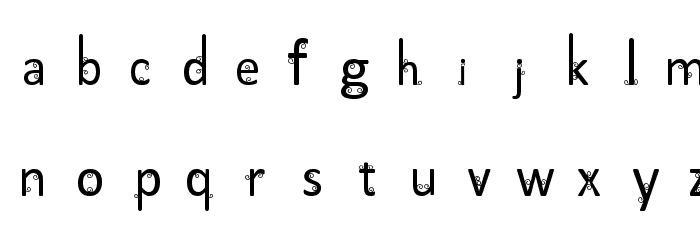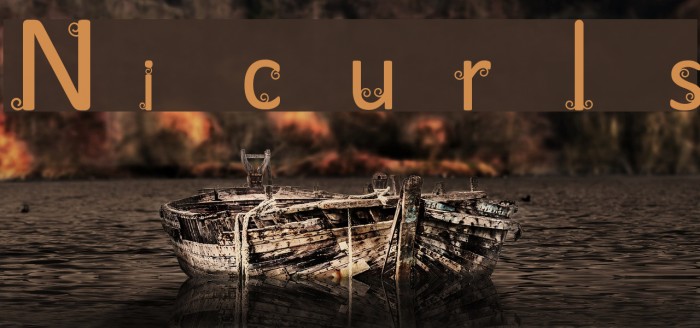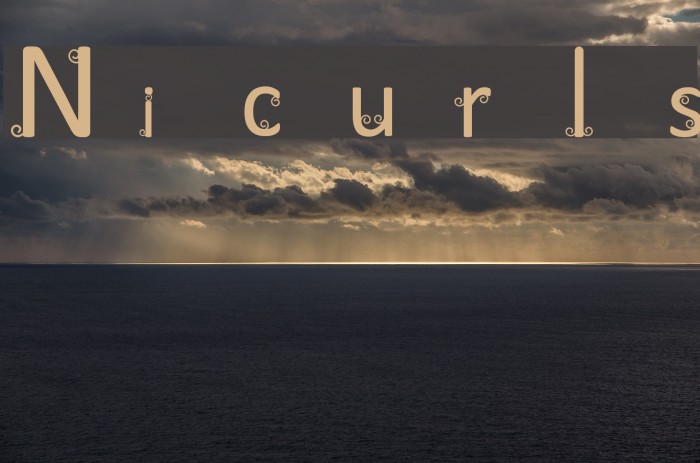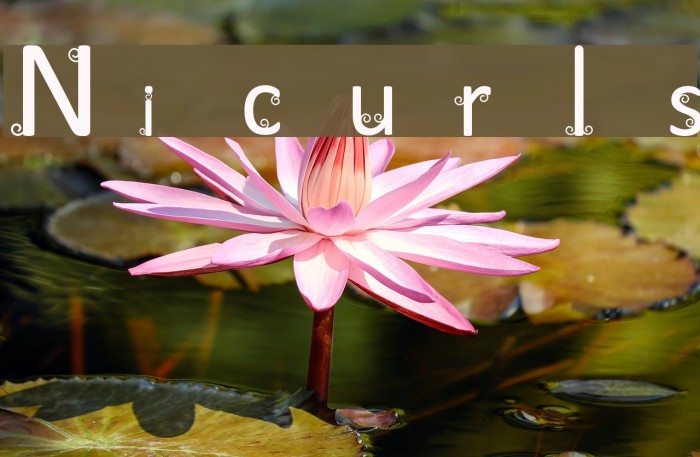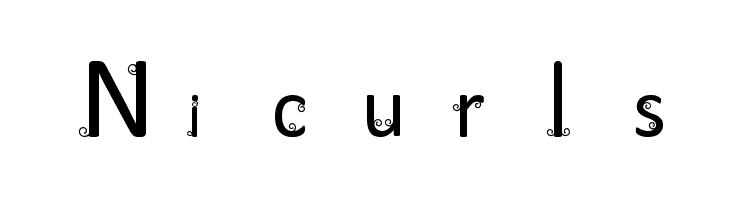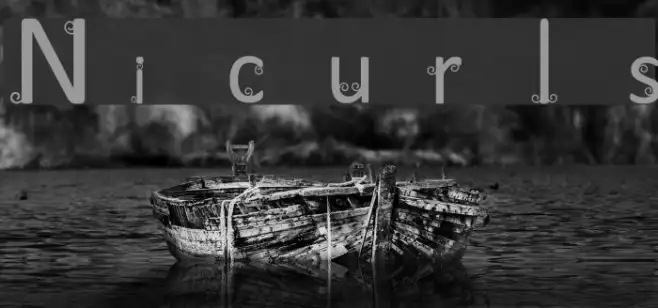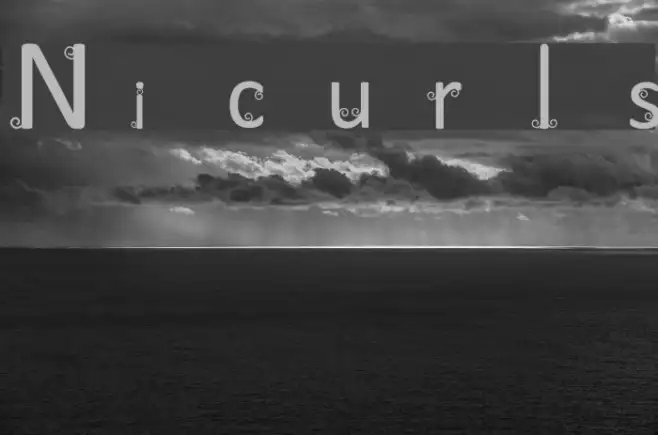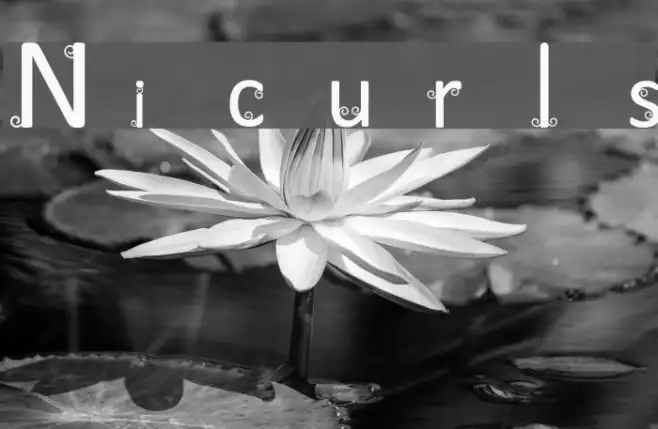
Nicurls Font
This font features a unique decorative style with intricate curls and swirls at the ends of each character, giving it a whimsical and artistic appearance. The uppercase and lowercase letters maintain a consistent design, with the curls adding a playful touch to the otherwise straightforward sans-serif structure. The numerals and special characters follow the same decorative theme, ensuring a cohesive look across all glyphs. This font's distinctive embellishments make it stand out, providing a creative flair that can enhance visual interest in various design projects.
A decorative font with whimsical curls and swirls on each character.
- Proposed Projects: Ideal for creative projects such as invitations, greeting cards, posters, and branding materials that require a playful and artistic touch.
- Use Case: Headlines, Logos, Artistic designs